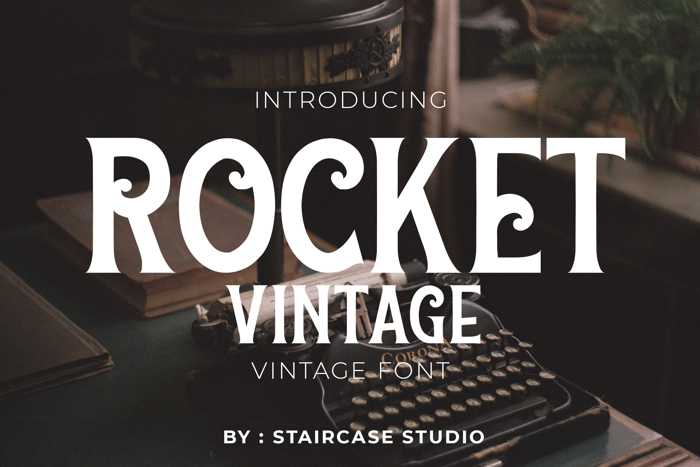
Rocket - Vintage Font
Rocket Vintage font with new and modern styles. A collection of letters and numbers suitable your projects also great for Logotype, Branding Design, Logo Design, Digital Lettering Arts, T-Shirt/Apparel, Poster, Magazine, Signs, Advertising Design, and any design needs.